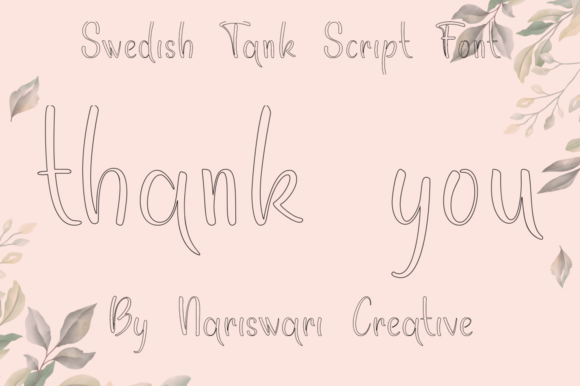
Swedish Tank Font for Elegant Handmade Labels
There is a specific moment in the design process when a product finally feels complete, and for me, that moment arrived while testing Swedish Tank on a new line of soy candle labels. As a maker who constantly navigates between digital mockups and physical production, finding the right typeface is often the difference between a design that looks homemade and one that feels professionally curated. Swedish Tank is a delicate, elegant and flowing handwritten font that immediately transformed my workspace aesthetic, bringing a sense of calm sophistication to jars that previously felt visually cluttered. When you are deep in the trenches of creating inventory for a seasonal shop update, having a reliable Script Handwritten typeface that balances artistic flair with commercial readability is not just a preference; it is a necessity for maintaining brand consistency across diverse product lines.
Swedish Tank for Candle Labels and Product Packaging
When applying Swedish Tank to physical product packaging like glass vessels or kraft paper tags, the visual weight of the letterforms becomes the primary concern for any serious crafter. This particular entry in the world of Fonts stands out because its strokes are refined enough to remain legible at smaller sizes, yet expressive enough to convey the artisanal nature of handmade goods. I recently used this font for a batch of lavender and sage candles, and the flowing connections between characters mimicked the organic movement of the scent itself, creating an immediate emotional connection before the customer even lit the wick. For fellow sellers using cutting machines like Cricut or Silhouette, the well-balanced characters mean fewer weeding headaches and cleaner adhesive application on curved surfaces. The elegance of Swedish Tank allows it to serve as the primary display text on a label without needing excessive embellishment, letting the typography itself act as the decorative element that elevates perceived value.
Elegant Wedding Stationery and Invitation Design with Swedish Tank
Designing for the wedding market requires a nuanced understanding of romance and formality, and Swedish Tank serves as a perfect anchor for invitation suites that need to feel personal rather than mass-produced. As a stationery designer, I have found that this Script Handwritten style bridges the gap between vintage calligraphy and modern minimalism, making it ideal for couples who want traditional elegance with a contemporary edge. When laying out a welcome sign or a detailed itinerary card, the beautiful and well balanced characters ensure that guests can easily read logistical information while still feeling the warmth of a hand-penned note. I often pair this font with a clean, lightweight sans serif for the body text to create a hierarchy that guides the eye naturally; the contrast between the structured informational text and the fluid headers creates a professional editorial look. For printable creators offering digital templates, including Swedish Tank adds a premium touch that justifies a higher price point, as buyers are actively searching for unique typography that doesn't look like overused free alternatives.
Swedish Tank for Printable Wall Art and Digital Downloads
Creating digital assets requires foresight regarding how a typeface will render on screen versus in print, and Swedish Tank excels in both environments due to its crisp vector construction. When designing inspirational wall art or nursery decor prints, the delicate nature of this font prevents bold affirmations from feeling aggressive, instead offering a gentle, encouraging tone that resonates with buyers looking for serene home aesthetics. I have used this typeface for minimalist line art posters where the text needs to harmonize with illustration rather than compete with it, and the result is always a cohesive piece of art. For those selling editable Canva templates or Corjl files, Swedish Tank provides a versatile option that appeals to a wide pool of designs, from boho chic to Scandinavian modern. It is crucial to verify the licensing terms when incorporating this font into digital products intended for resale, ensuring that your creative business remains compliant while delivering high-quality design assets to your customers.
Seasonal Craft Projects and Boutique Branding Using Swedish Tank
Adapting your shop’s visual identity for holidays and seasonal shifts is easier when you have a versatile tool like Swedish Tank in your typography arsenal. Whether I am designing Christmas gift tags, Valentine’s Day card overlays, or autumn market signage, this Script Handwritten font maintains its integrity across different thematic contexts without losing its core identity. During a recent holiday rush, I utilized this font for embroidered hoop ornaments and heat-transfer vinyl tote bags, discovering that the flowing lines translated beautifully to textile mediums where blockier fonts might fail. The key to successful seasonal branding is consistency; by using Swedish Tank as your signature display font year-round, you build recognition that helps returning customers identify your work instantly, even as the color palettes and motifs change. This level of brand cohesion is what separates hobbyists from established businesses, and having a font that matches a wide pool of designs makes that consistency achievable without purchasing a new typeface for every single holiday.
Font Pairing and Readability Tips for Swedish Tank Creators
Maximizing the impact of Swedish Tank involves strategic pairing with complementary typefaces to ensure your final product is both beautiful and functional. Because this font possesses such distinct personality and flow, it pairs exceptionally well with simple, geometric sans serifs or classic serifs that provide a neutral backdrop for its elegance. When designing product labels or social media graphics, avoid pairing it with another elaborate script, as this creates visual competition that reduces readability and dilutes the sophisticated mood. For makers producing small items like jewelry cards or sticker sheets, test the minimum size threshold before mass production; while Swedish Tank is well-balanced, extremely small scales may require increased tracking or a switch to a simpler alternate character if available. Always check the included OpenType features, such as ligatures or swashes, which can add custom flourishes to specific words without breaking the natural rhythm of the handwriting. By treating this font as a premium design element and respecting its spacing requirements, you ensure that every label, card, and digital download reflects the high standards of your handmade business.